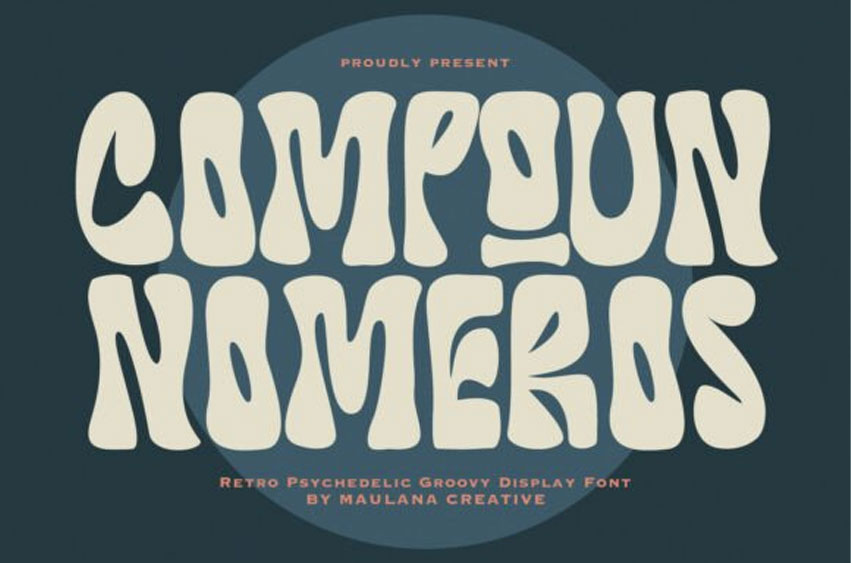
Compoun Nomeros Font
Compoun Nomeros Font Take a trip back to the vibrant, experimental era of the 1970s with Compoun Nomeros font. This retro-inspired display typeface is a celebration of “liquid” geometry and psychedelic flair.
Featuring heavy, melting letterforms and unexpected negative space, the Compoun Nomeros font captures the spirit of the counter-culture movement with a modern, polished execution. It is a typeface that doesn’t just sit on the page—it moves, vibrates, and sings. If you are looking to inject a sense of fun, rebellion, or nostalgic “cool” into your project, this is the typeface that will get the job done.
The Compoun Nomeros typeface is specifically engineered for maximum impact in display settings. It is the perfect choice for concert posters, streetwear branding, and bold social media graphics that need to “stop the scroll.” Because the Compoun Nomeros font has such a strong personality, it acts as a standalone design element; you don’t need much else on the page when these letters are doing the talking.
Pair it with vibrant, clashing color palettes for a full retro effect, or use it in high-contrast black and white for a sophisticated, “art-house” look. From album covers to quirky cafe identities, this font is your ticket to a bold, groovy aesthetic.